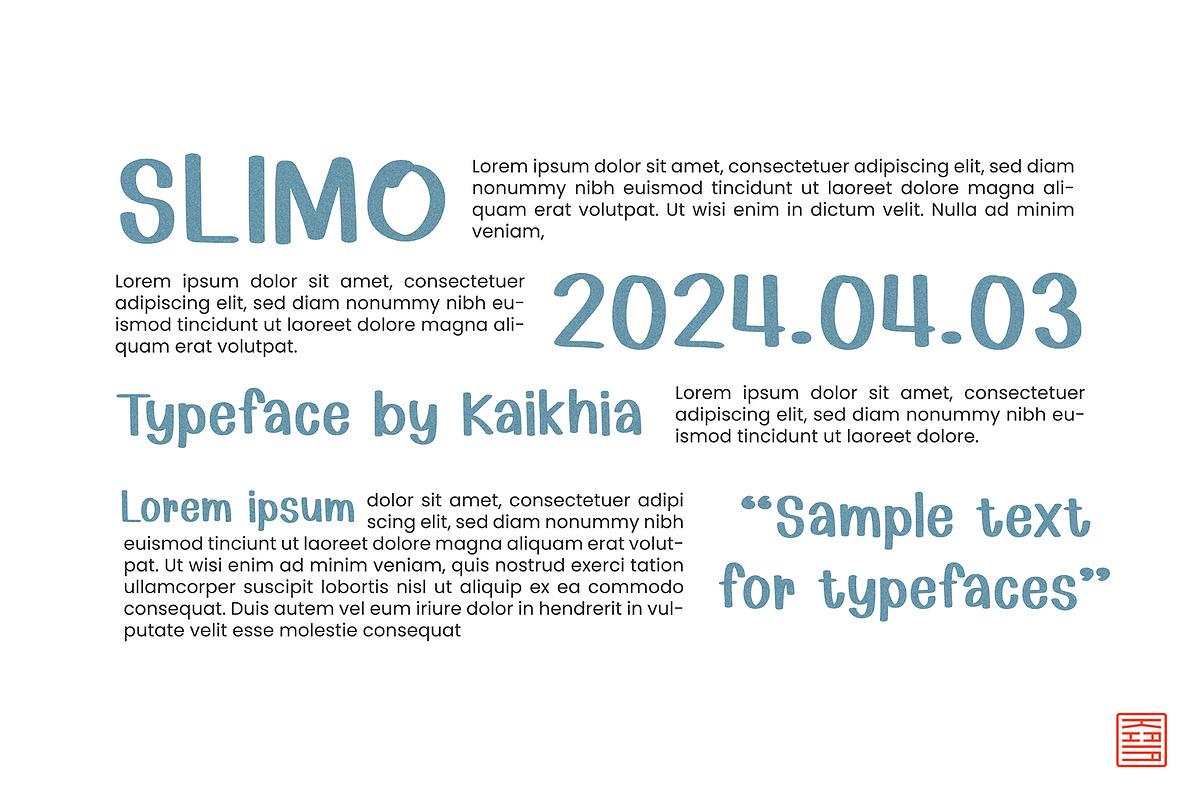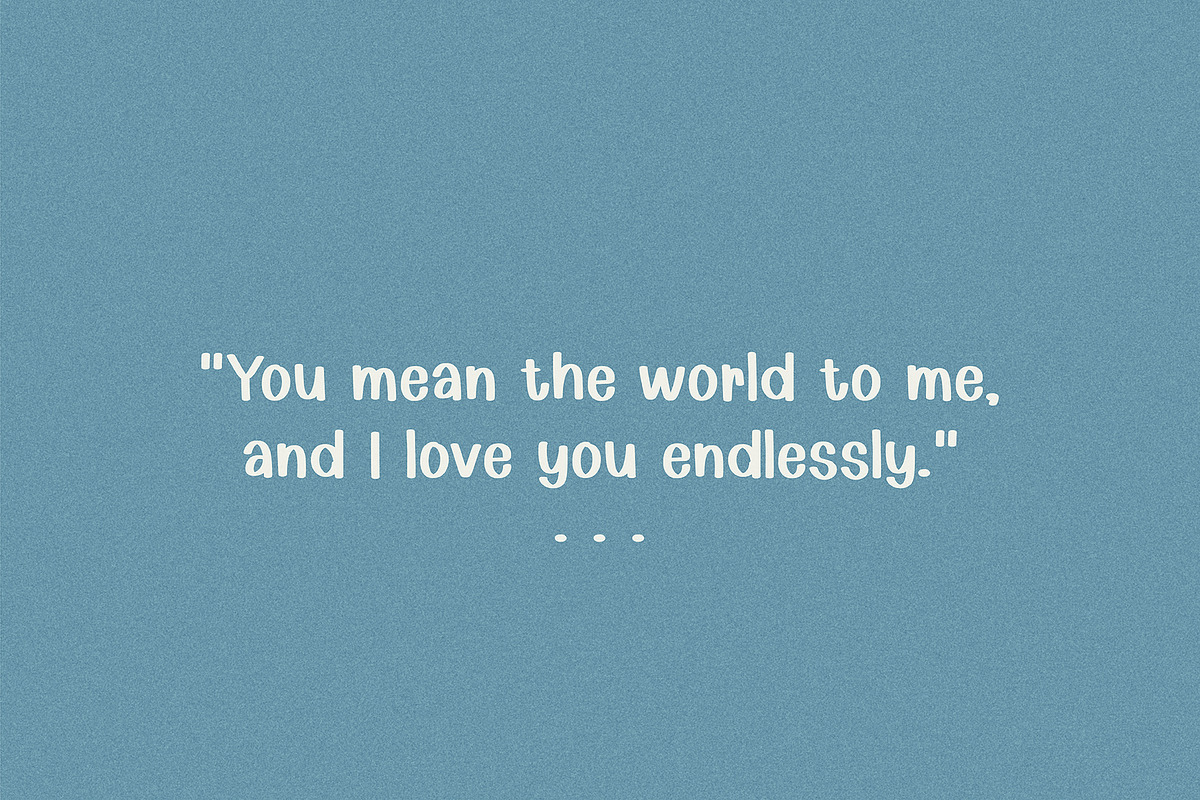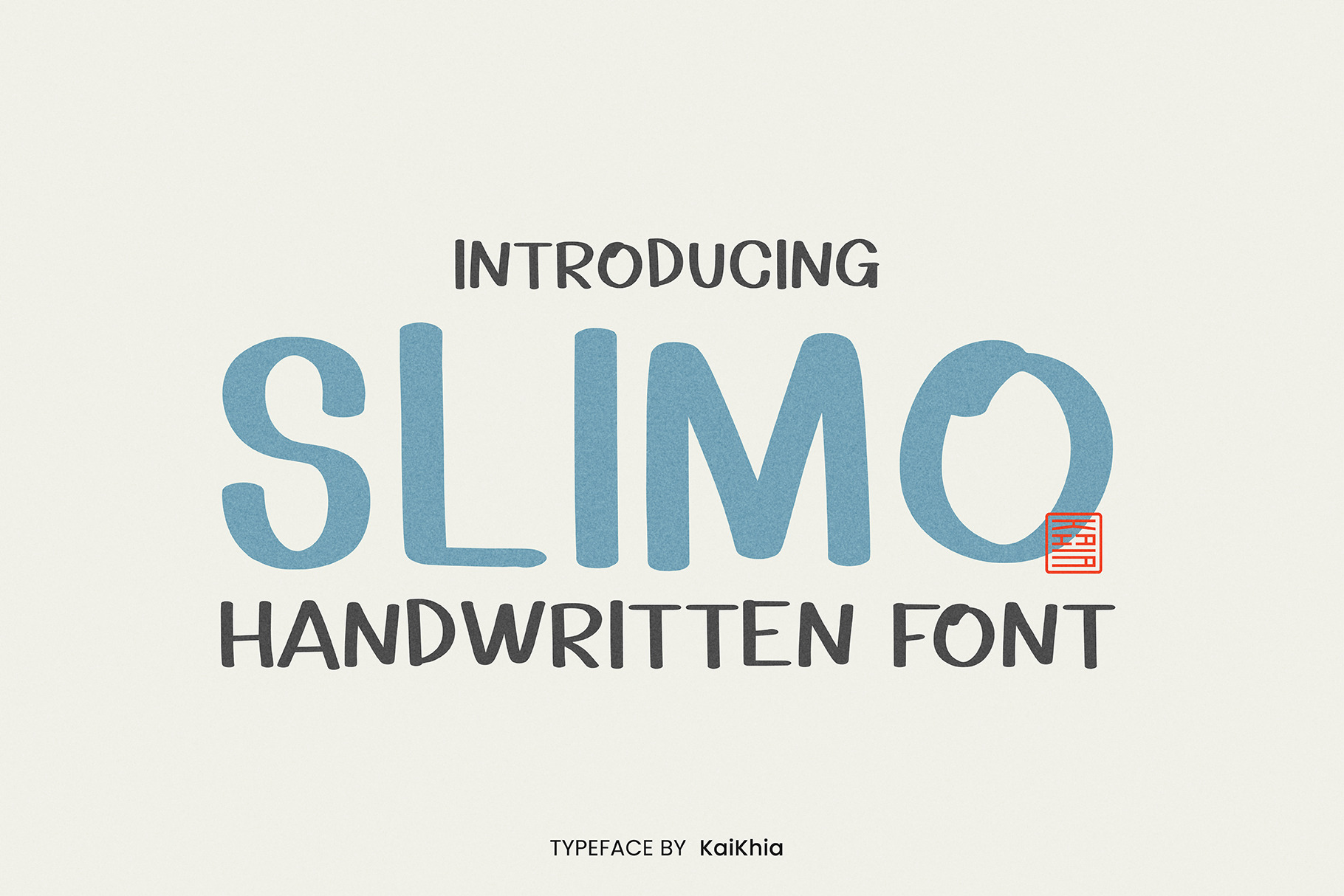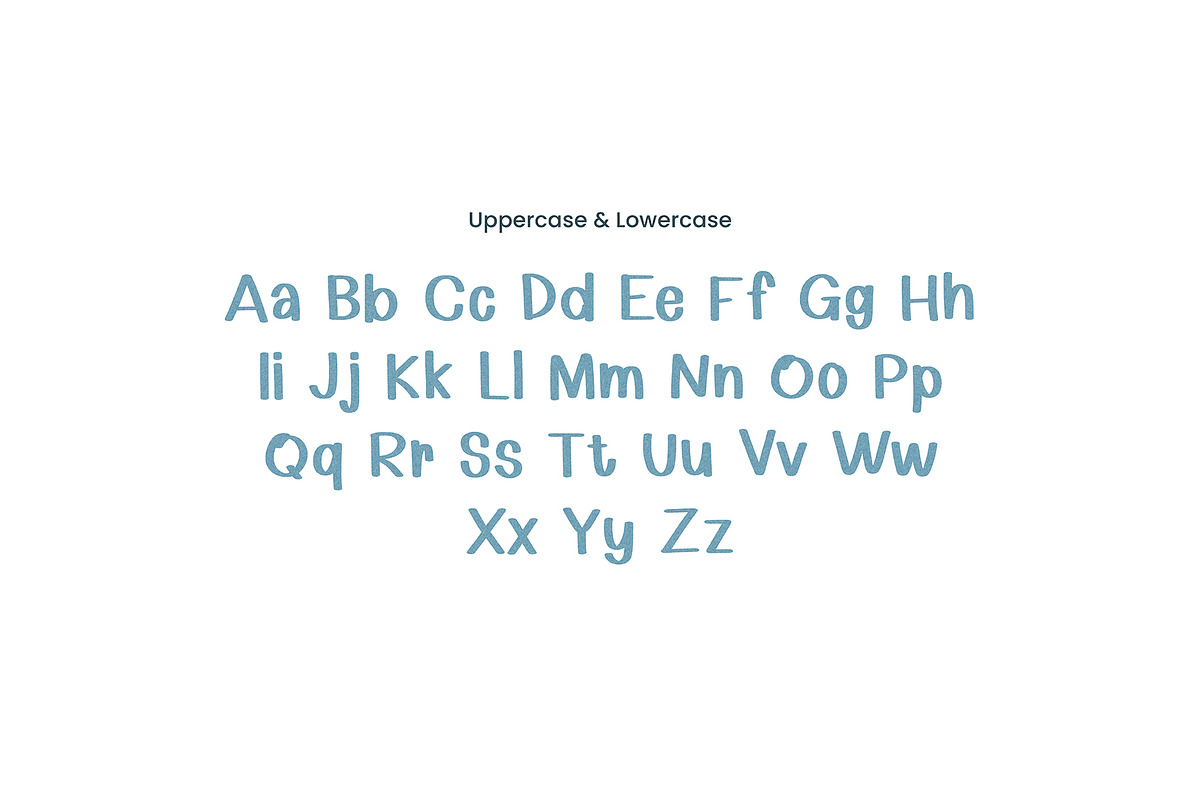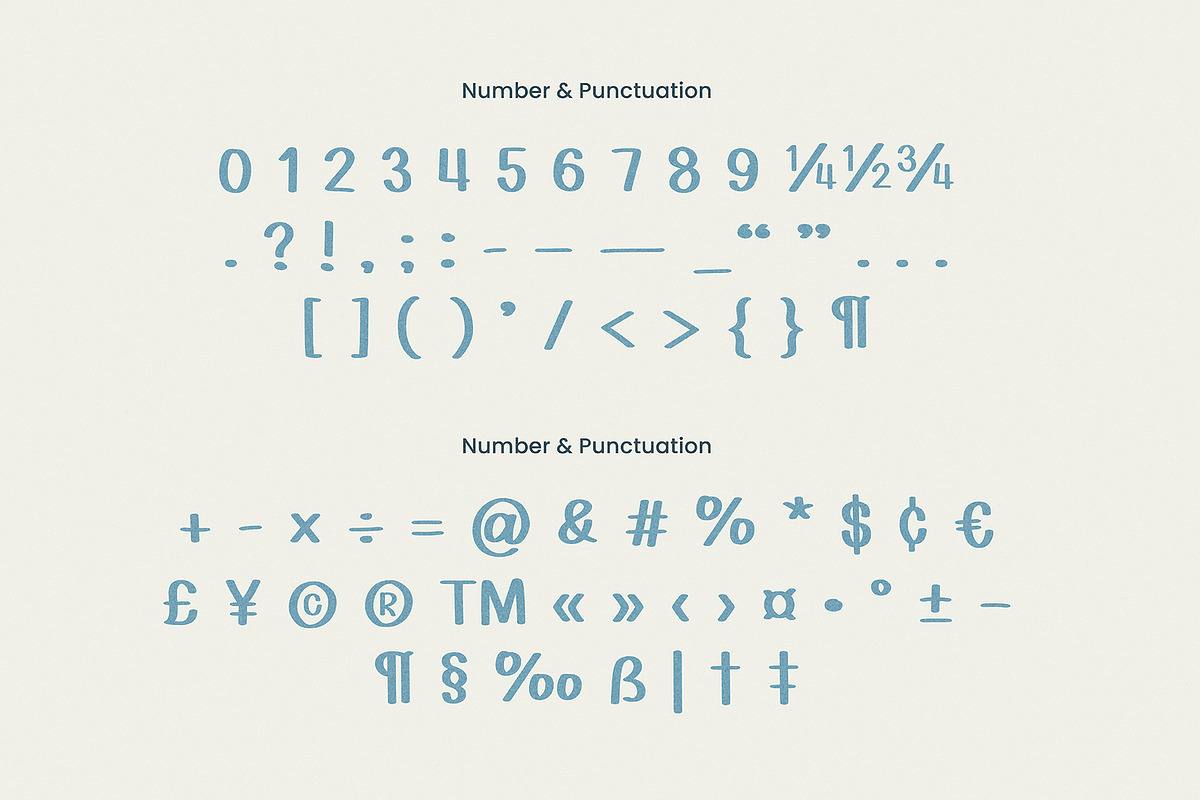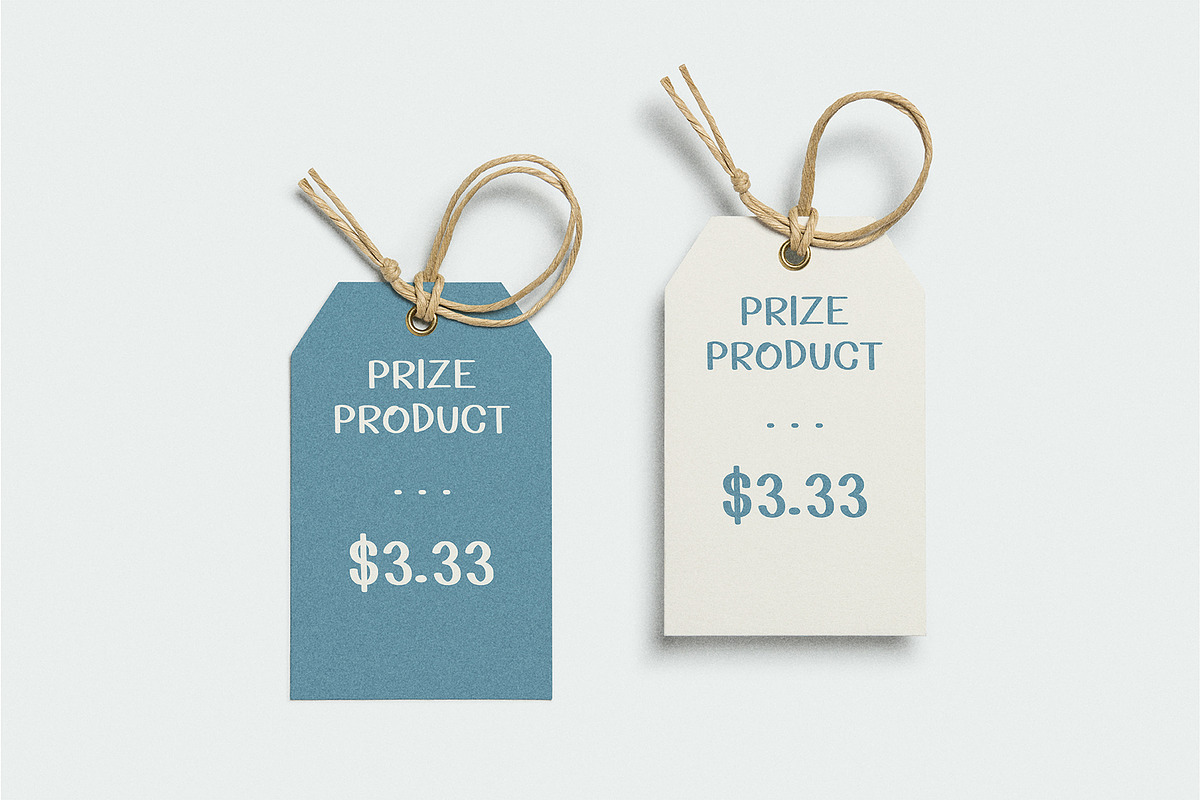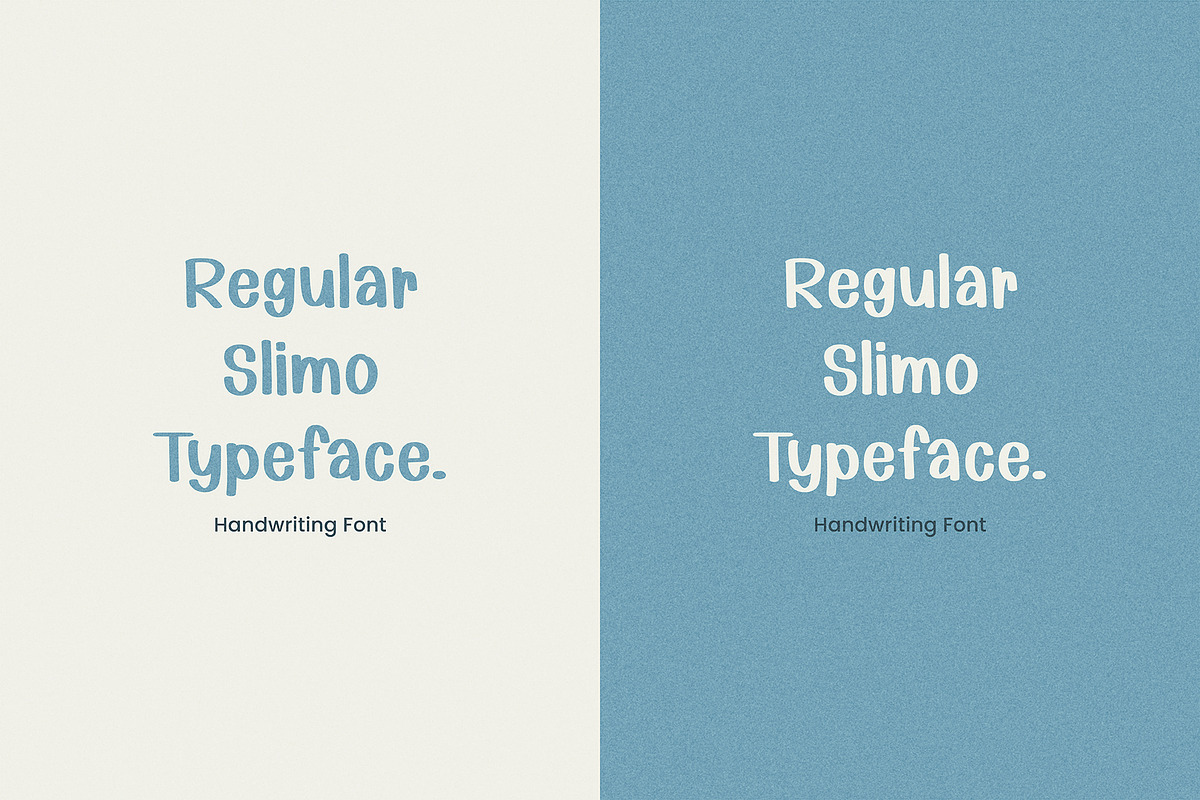
Slimo, Handwritten Font.
Introducing our new product, Slimo Font a typeface perfect for lively and fun content or for writing purposes such as note-taking or creating readable text. It seamlessly adds a touch of playfulness to your content. Additionally, Slimo Font is ideal for various projects like notebooks, posters, branding, logos, packaging, magazines, book covers, and much more.